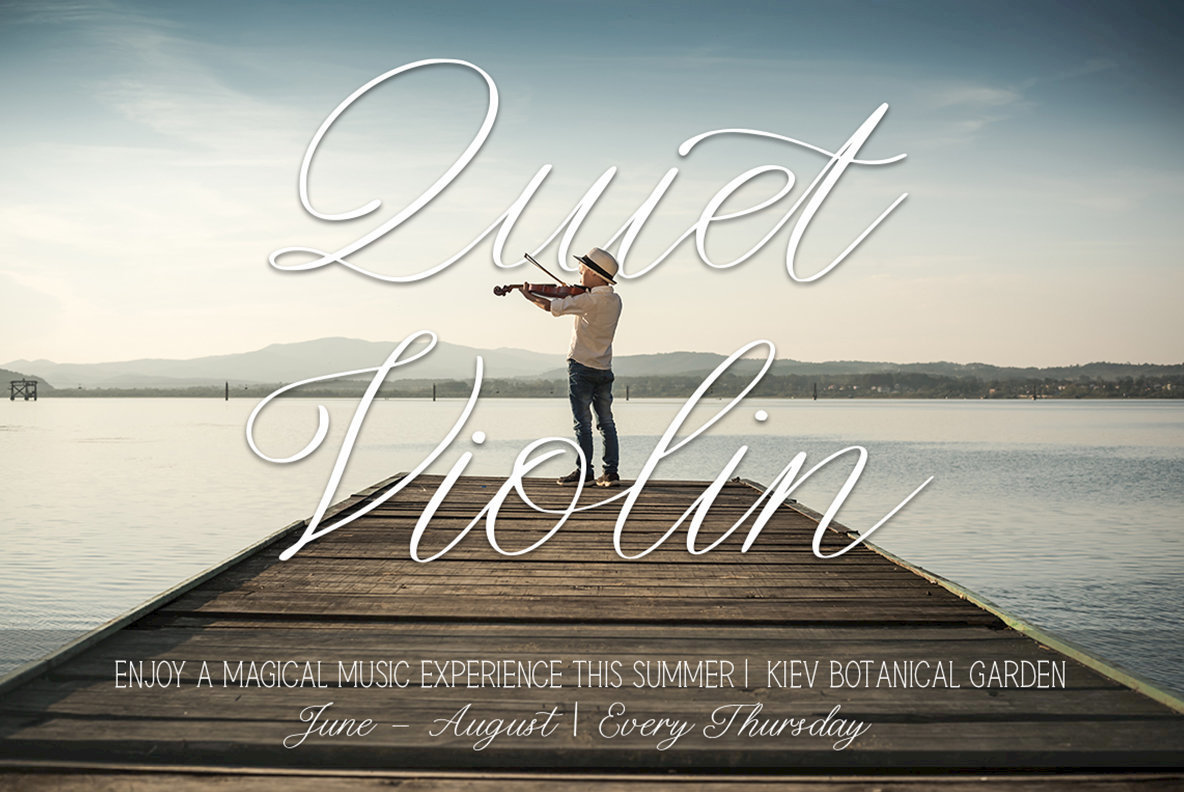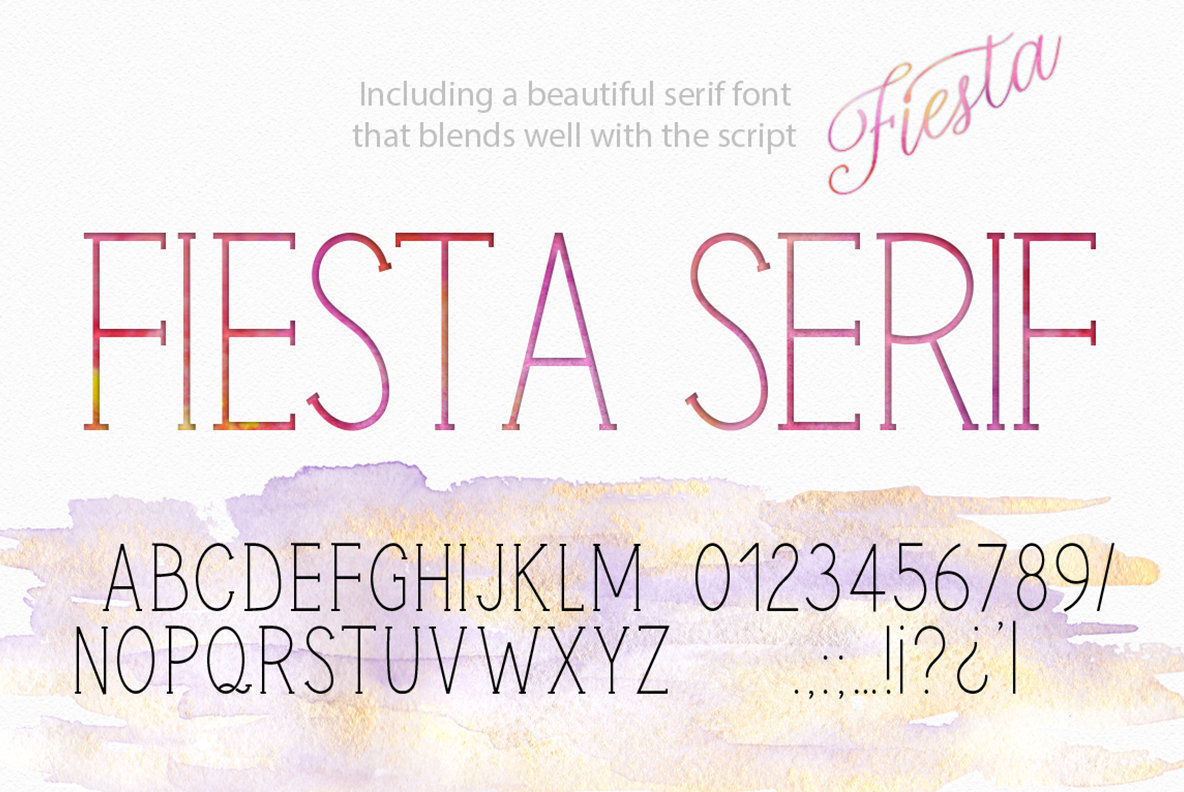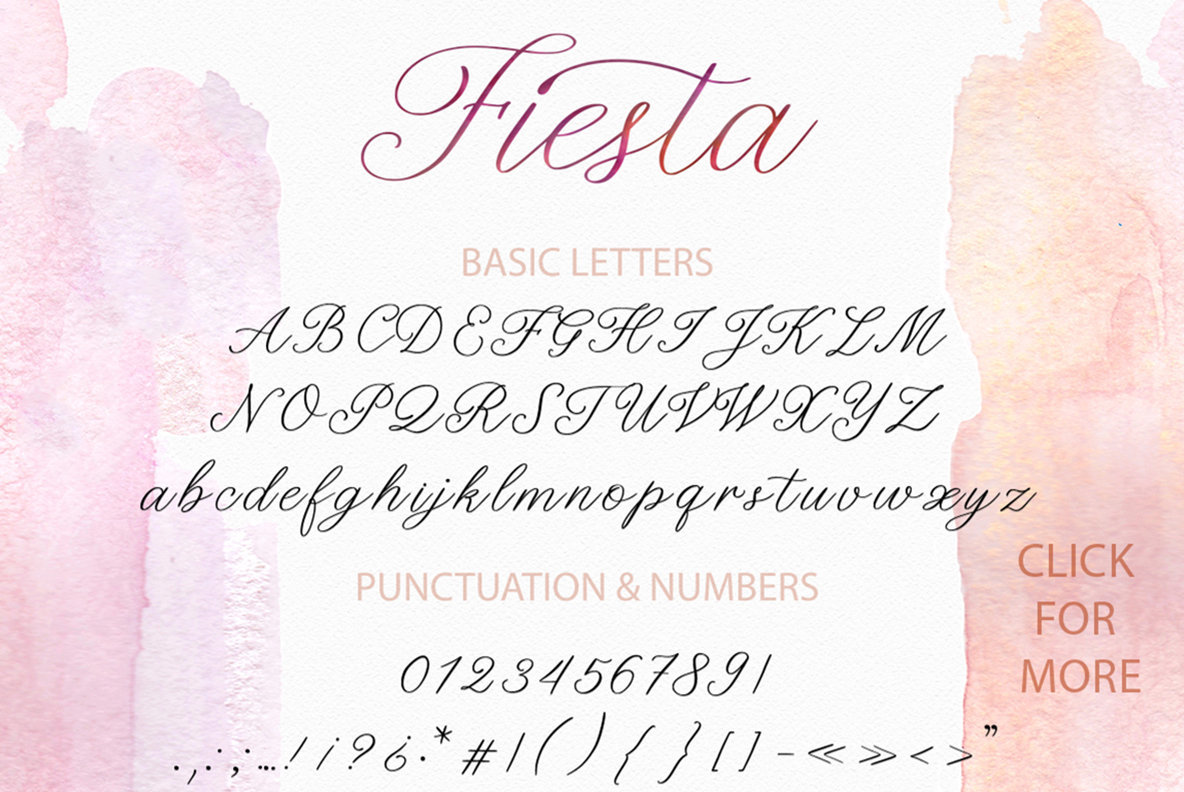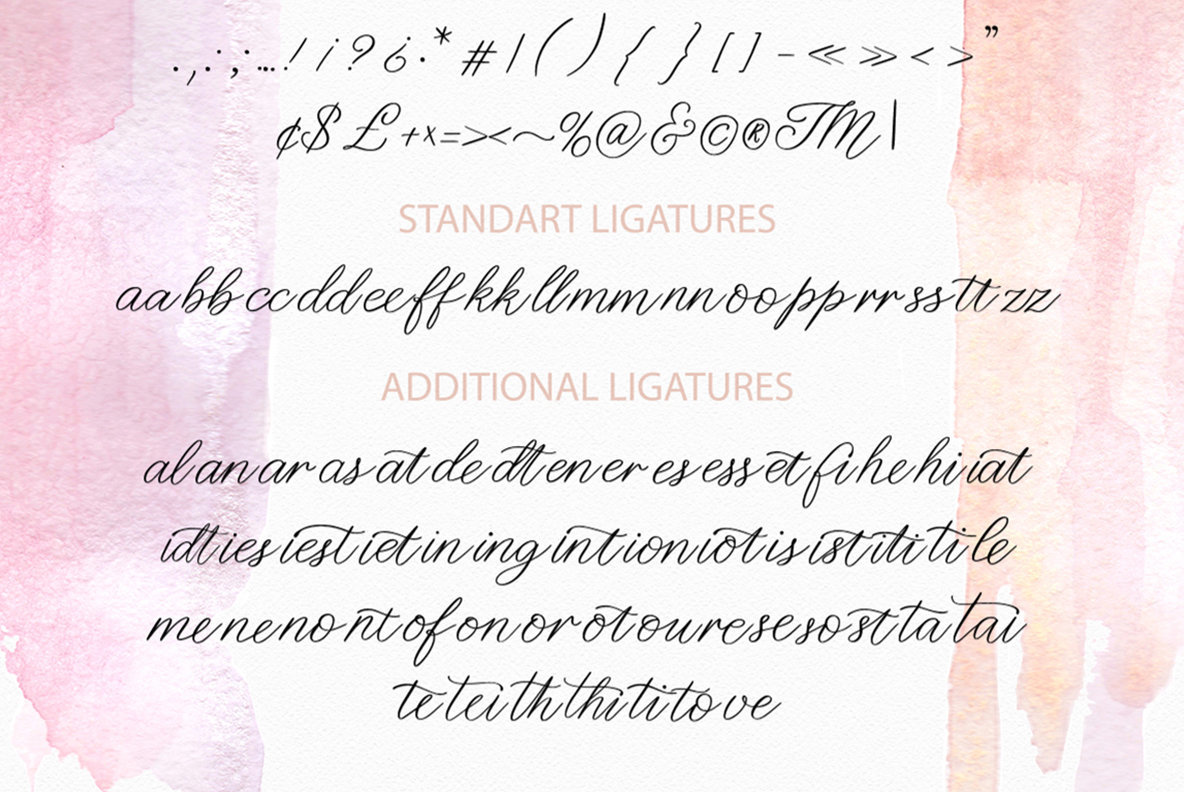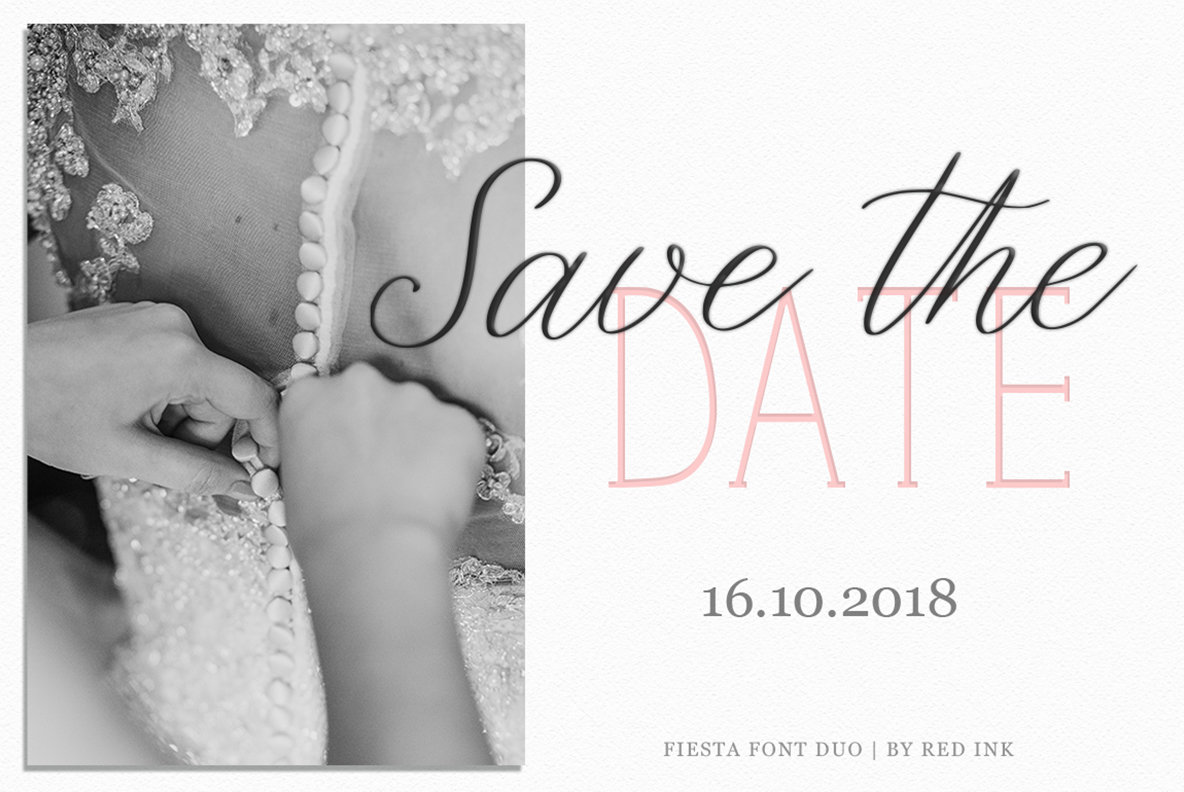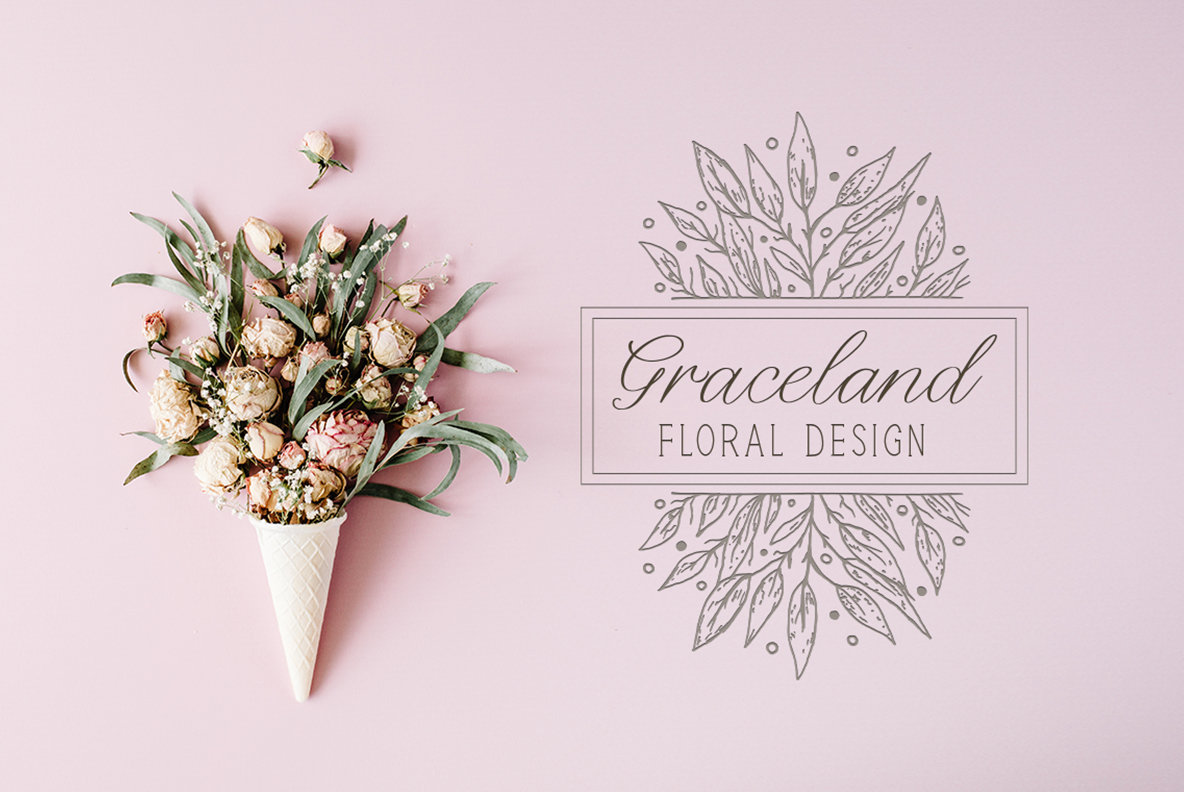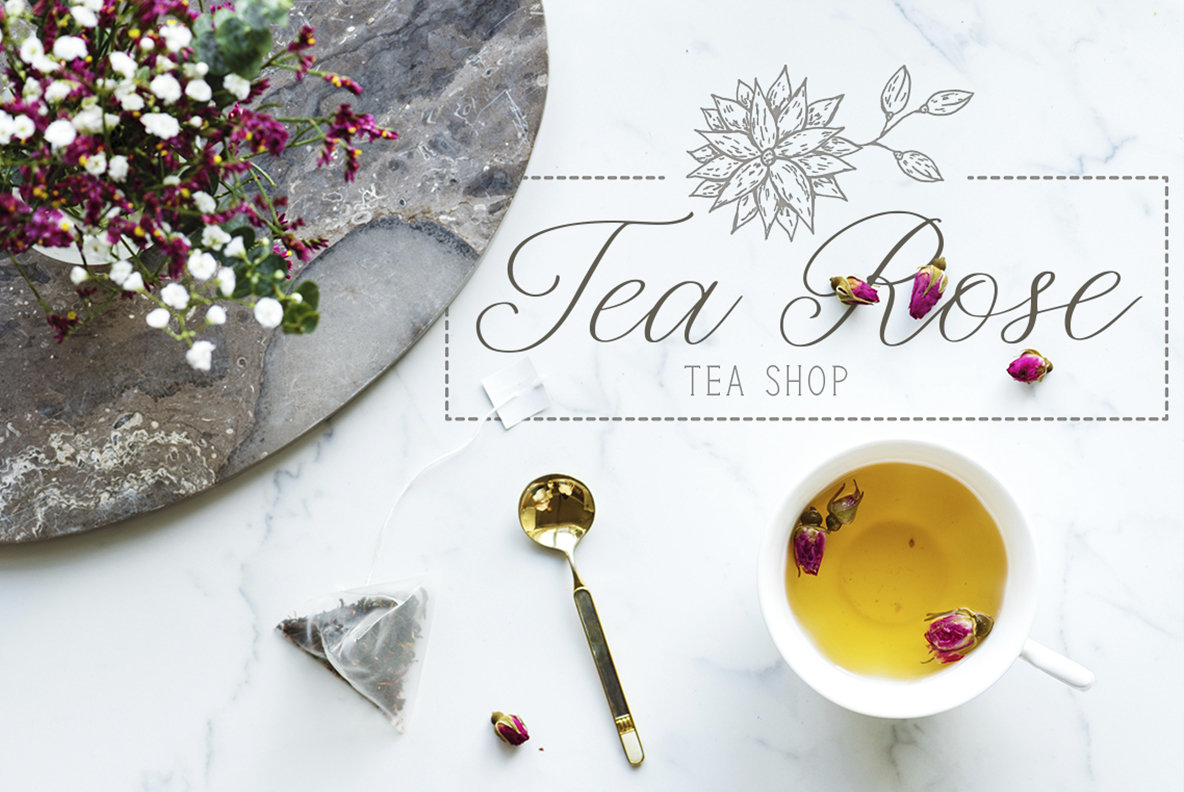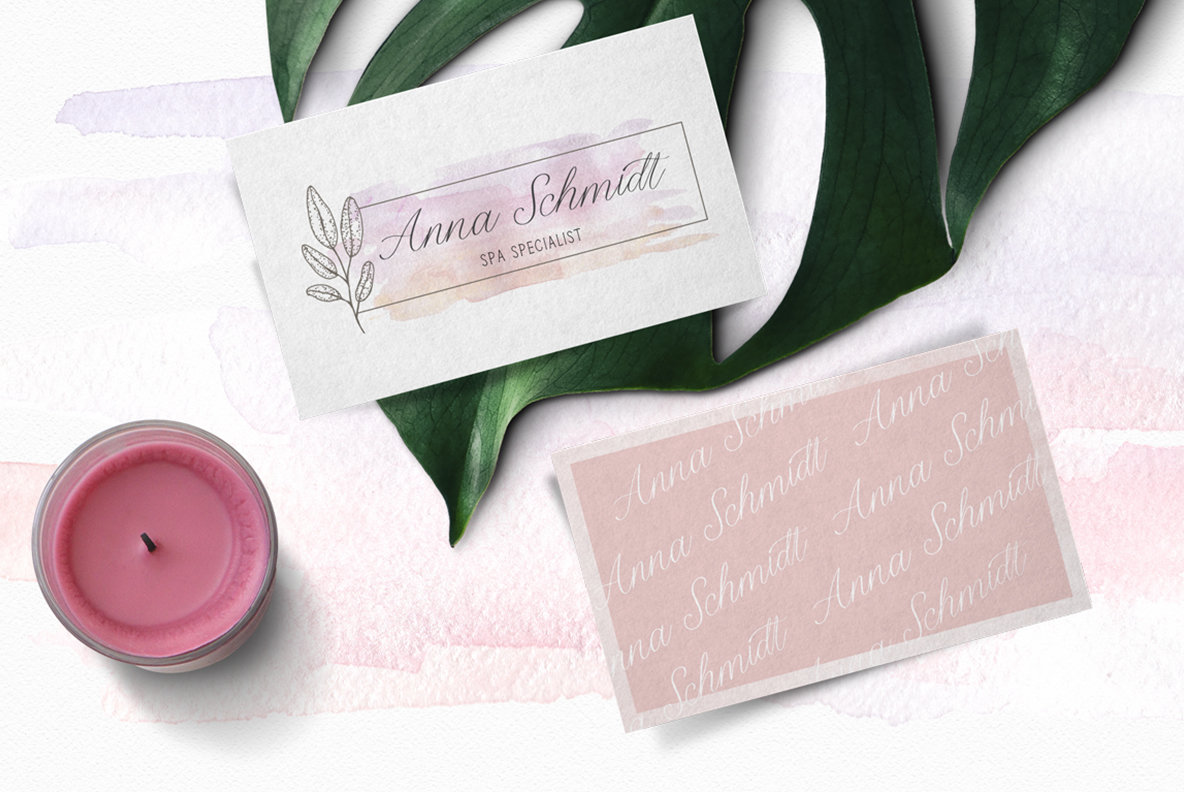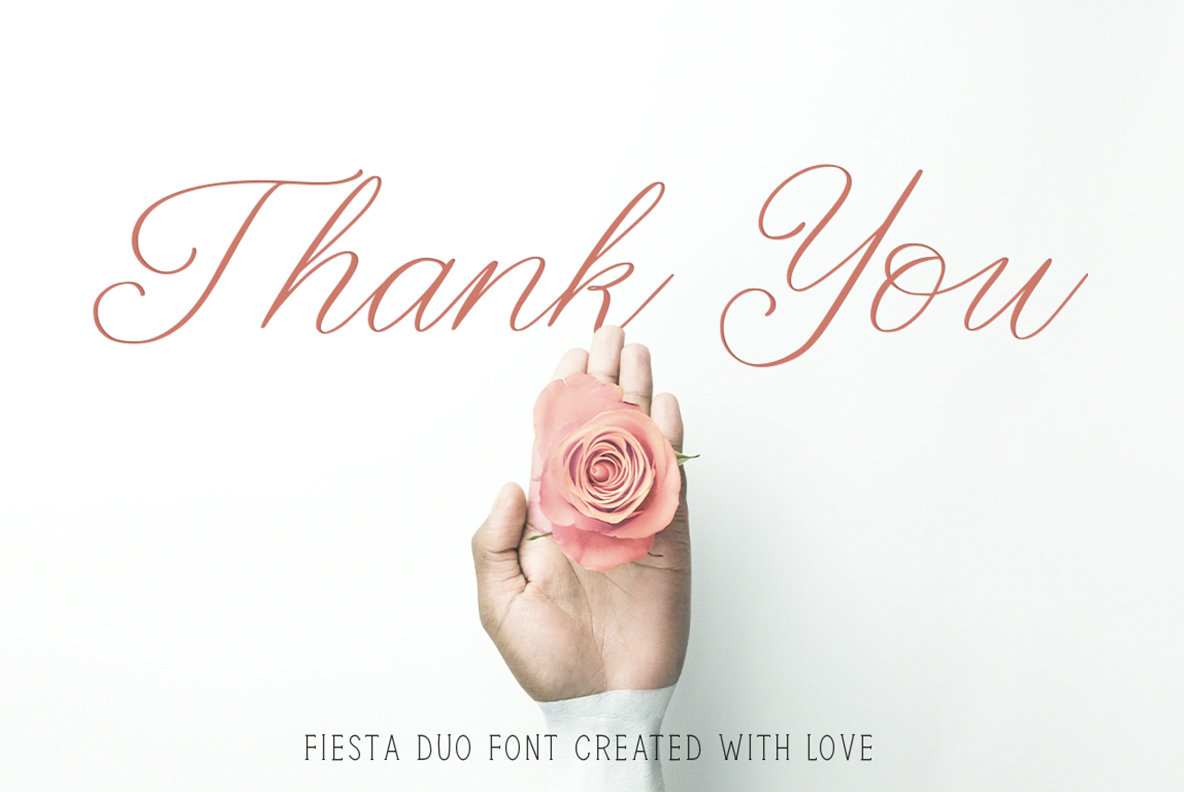
Fiesta Font
I'm happy to introduce you Solomiya Script Font with vintage, tribal, light, and magic feel.
Solomiya font based on Ukrainian skoropus - traditional writing style in the 17th century in Ukraine.
Solomiya has incredible variability of letters, playful slopes and uniqueness of handwritting. This is my attempt to acquaint you with the amazing richness of Ukrainian tribal typographic inscriptions, based on handwriting of the Ukrainian Zaporozhian Cossacks.
Solomiya is a perfect tool to create amazing designs, like greeting cards, modern t-shirts, posters, mugs, luxury branding materials, wedding and event stationery, social media overlays and any other projects you are working on.
Each letter includes 3 alternate variants for uppercsase and 4 alternate variants for lovercase (for Cyrillic & for Latin). Font includes more than 90 languages.
It’s very easy to get alternative glyphs:
just type the number after any letter (1…3 for lowercase and 1..2 for uppercase). So, you can forget about the Glyphs panel and have fun and great results just type numbers after letters.
You can still use the Glyphs panel. You’ll see there 290 alternates (132 Latin alternate glyphs and 158 Cyrillic alternate glyphs).
It has multilingual support, which include Western European, Central European and South Eastern European languages, Russian and Ukrainian.